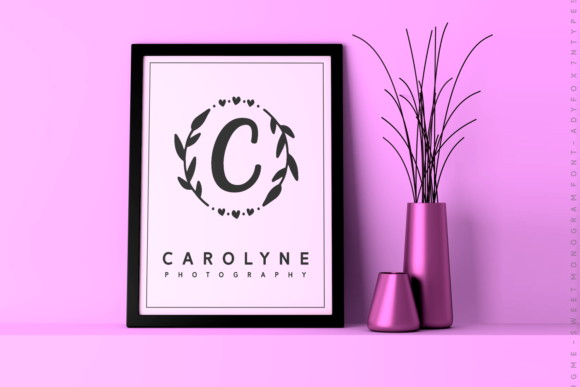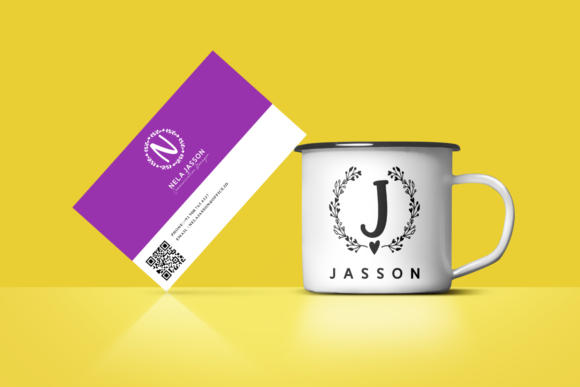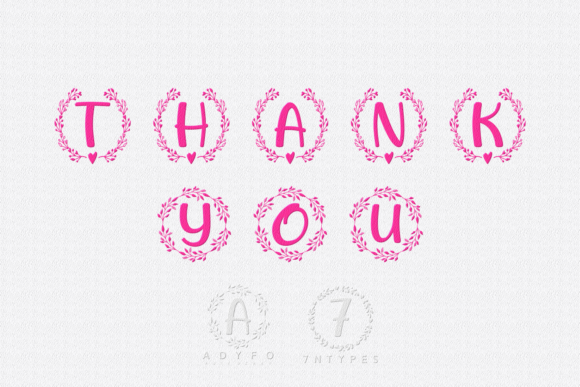
Introduction to Hugme Font Font
Fonts play a crucial role in design, and the Hugme Font font is a typeface that brings both character and versatility to any project. Whether you’re working on a branding project, a website, or a print design, the Hugme Font font offers a unique style that can elevate your work.
The Hugme is an amazing monogram font.
It includes 5 unique, beautiful wreaths which will will make any design stand out .
Key Features of Hugme Font Font
Why Choose Hugme Font Font?
The Hugme Font font is more than just a typeface – it’s a design tool that helps you communicate your message with style and clarity. Its unique character set and versatile design make it suitable for a wide range of applications, from elegant invitations to bold headlines.
With its carefully crafted letterforms and balanced proportions, the Hugme Font font ensures readability and visual appeal across all mediums.
What makes Hugme Font font special?
The Hugme Font font stands out with its unique design, exceptional readability, and versatility across various design applications.